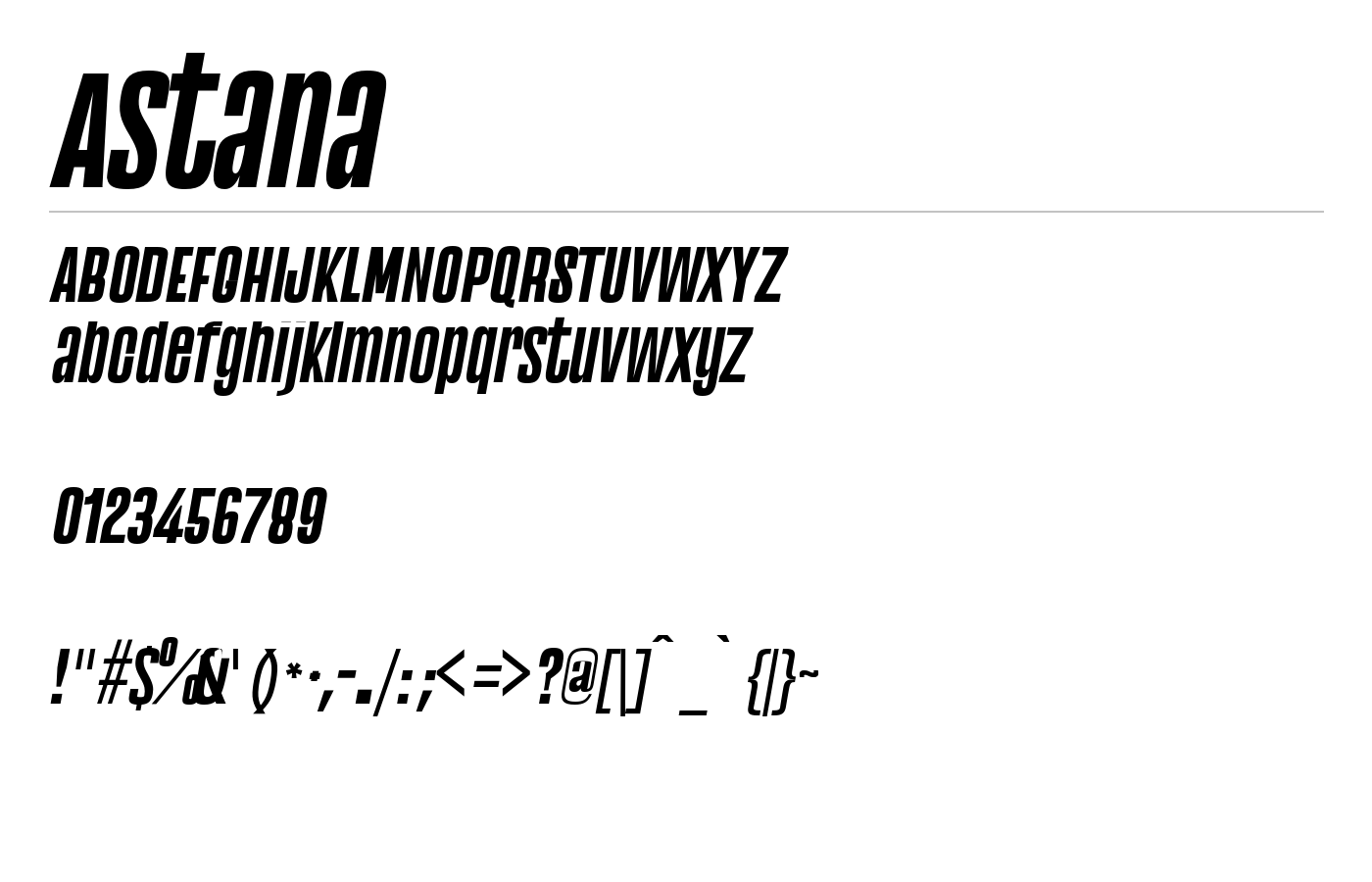
Astana is a bold, condensed sans serif font with a strong, dynamic presence created by its italicized, tightly spaced letterforms. Its sharp edges and uniform stroke weight give it a modern, energetic feel that works well for headlines, branding, and display purposes where impact and readability are essential. This font suits contemporary designs seeking a sleek, assertive style with a sporty or adventurous vibe.
Astana Font
About Astana Font